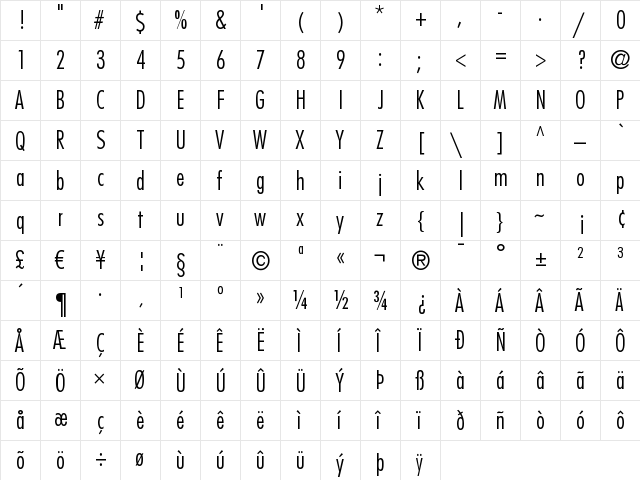
Futura LT CondensedLight Font Preview
Design Context for Futura LT Typeface
Futura LT has a distinctly futuristic character, with geometric precision and clean angles that feel at home in technology, gaming, and sci-fi contexts. The delicate stroke weight brings airiness and refinement to layouts. Its narrow stance lets it pack a punch even in space-constrained designs.
Pro Tip: Try Futura LT with generous letter-spacing in UI labels and navigation — the geometric forms benefit from room to breathe.